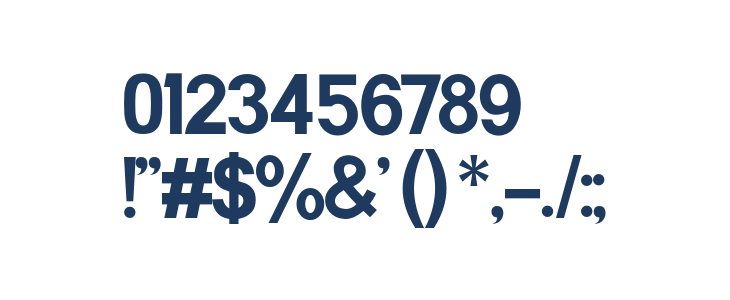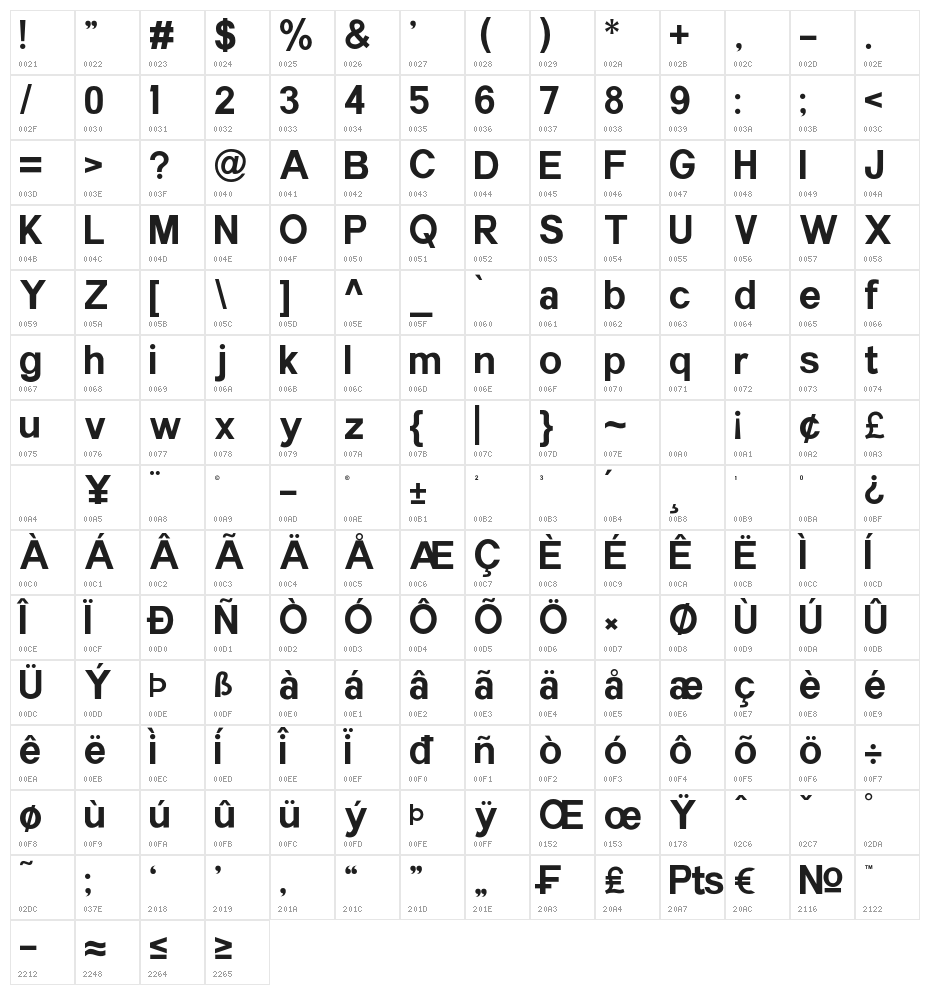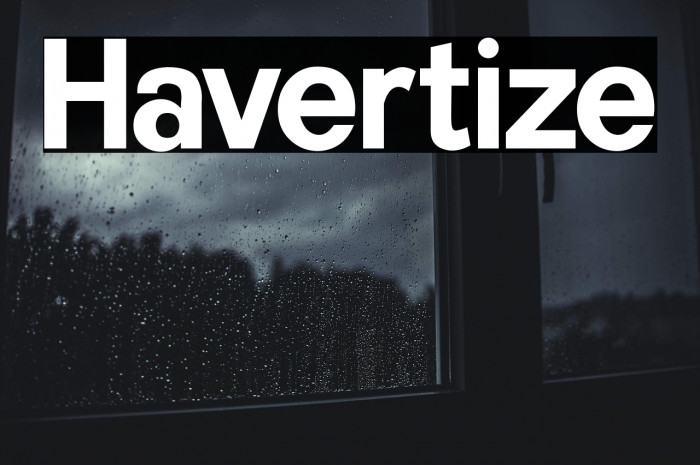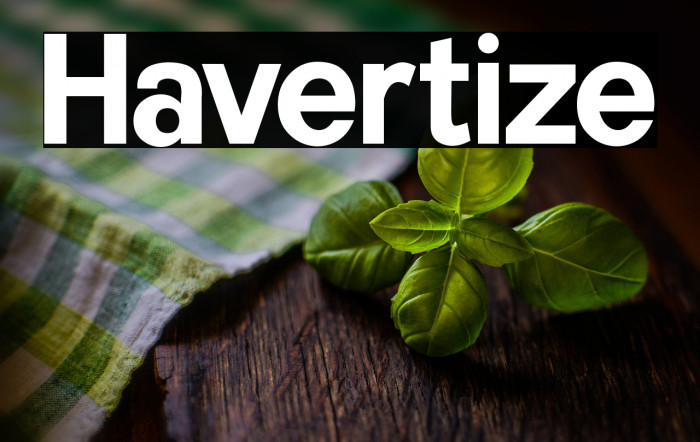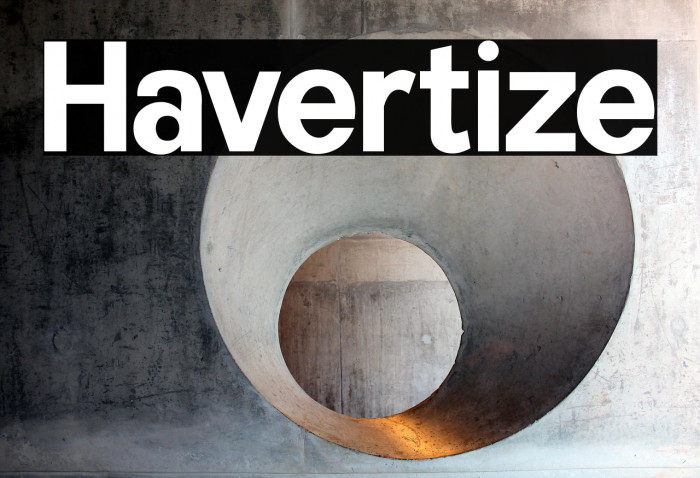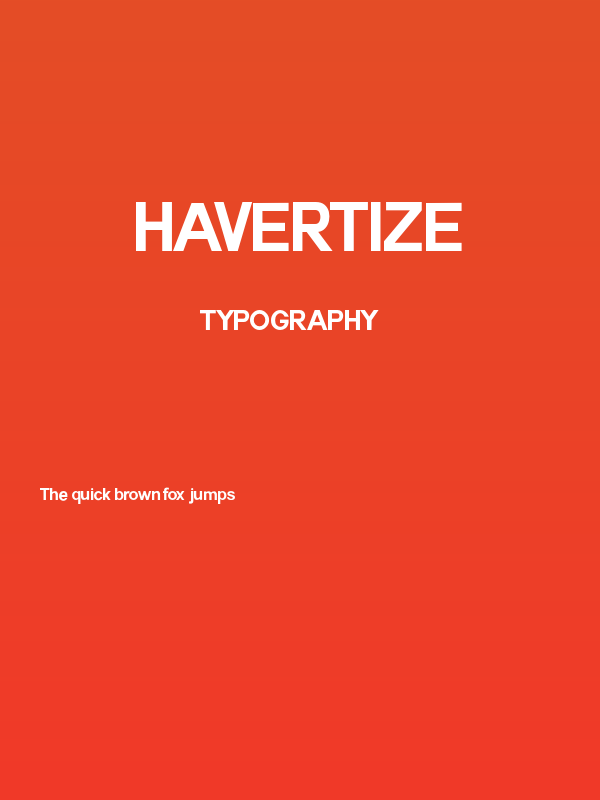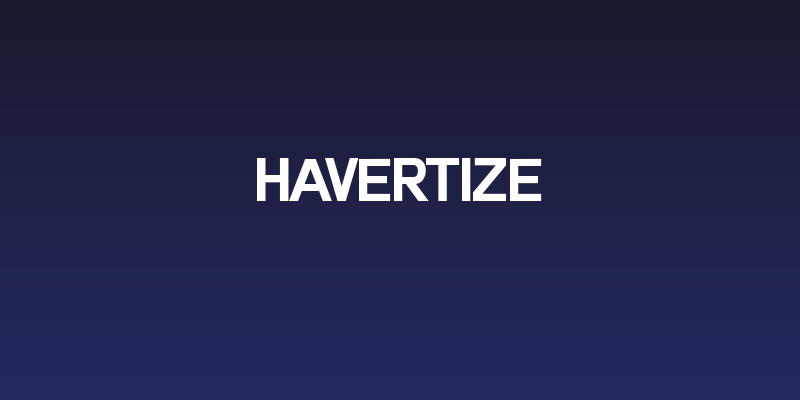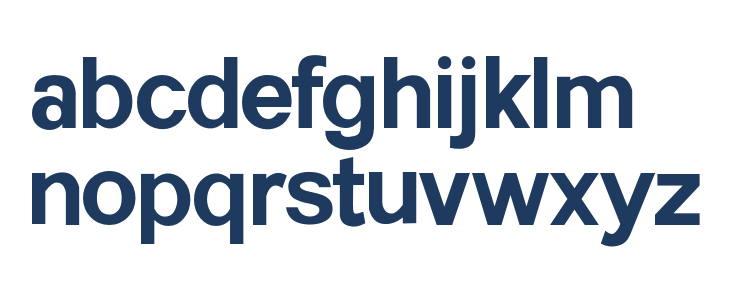
Havertize Font
Havertize Description
This font features a bold and modern sans-serif style with clean, straight lines and uniform stroke widths. The characters are well-balanced, providing excellent readability. The uppercase letters are strong and assertive, while the lowercase letters maintain a consistent flow, enhancing the font's versatility. The numerals are clear and distinct, making them suitable for various numerical displays. Special characters are designed to complement the overall aesthetic, ensuring seamless integration in diverse applications. The font's simplicity and clarity make it ideal for both digital and print media.
| Use Case | Headlines, Logos, Digital Media |
| Proposed Projects | Ideal for branding, advertising, web design, and editorial projects. |